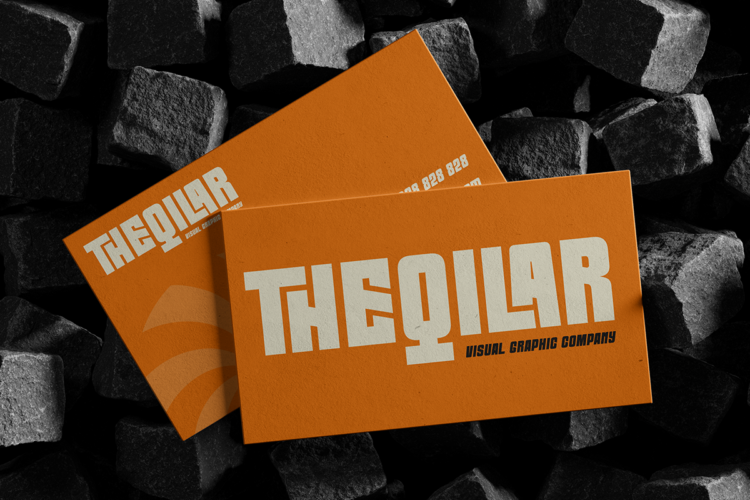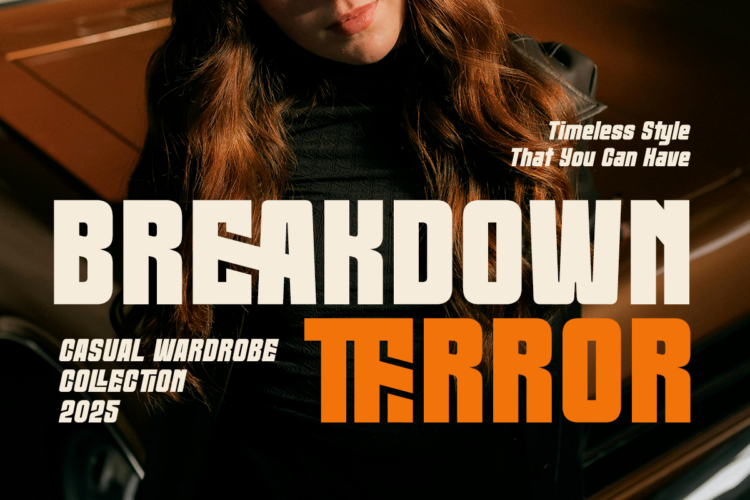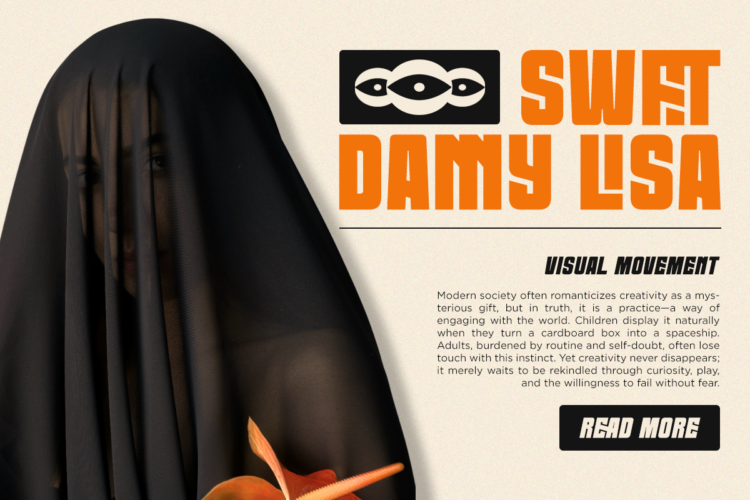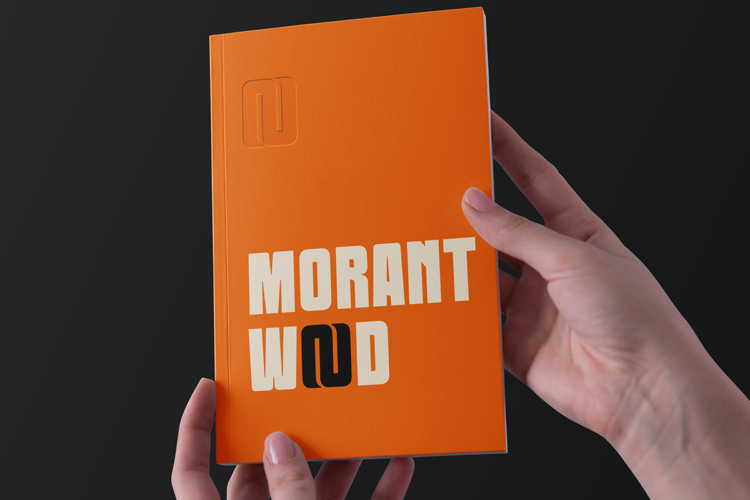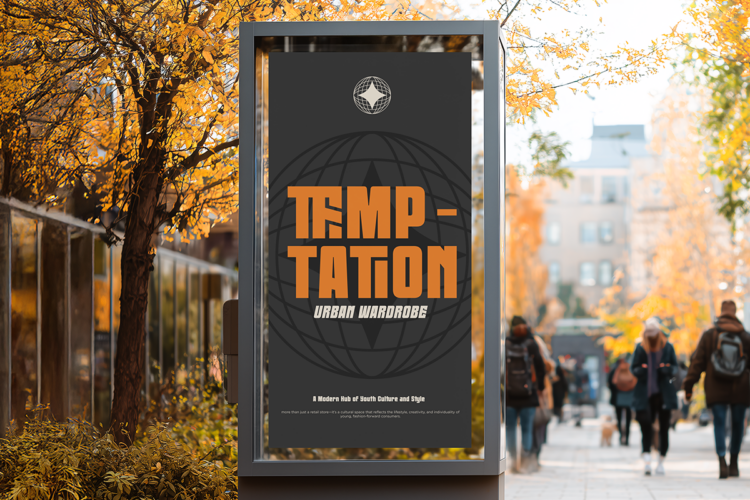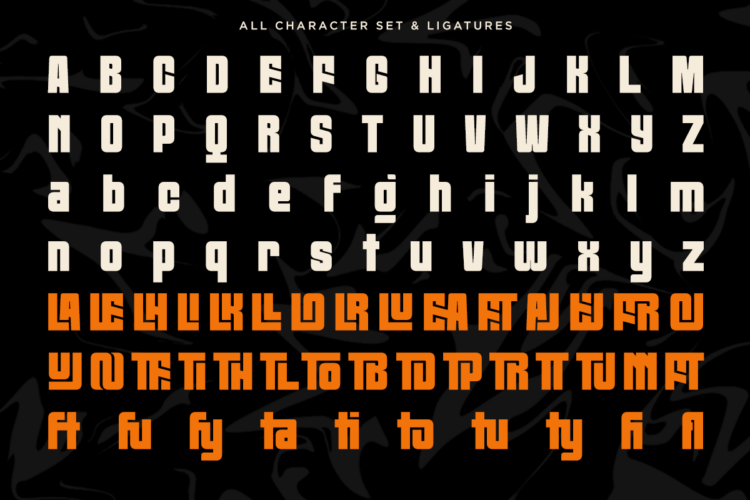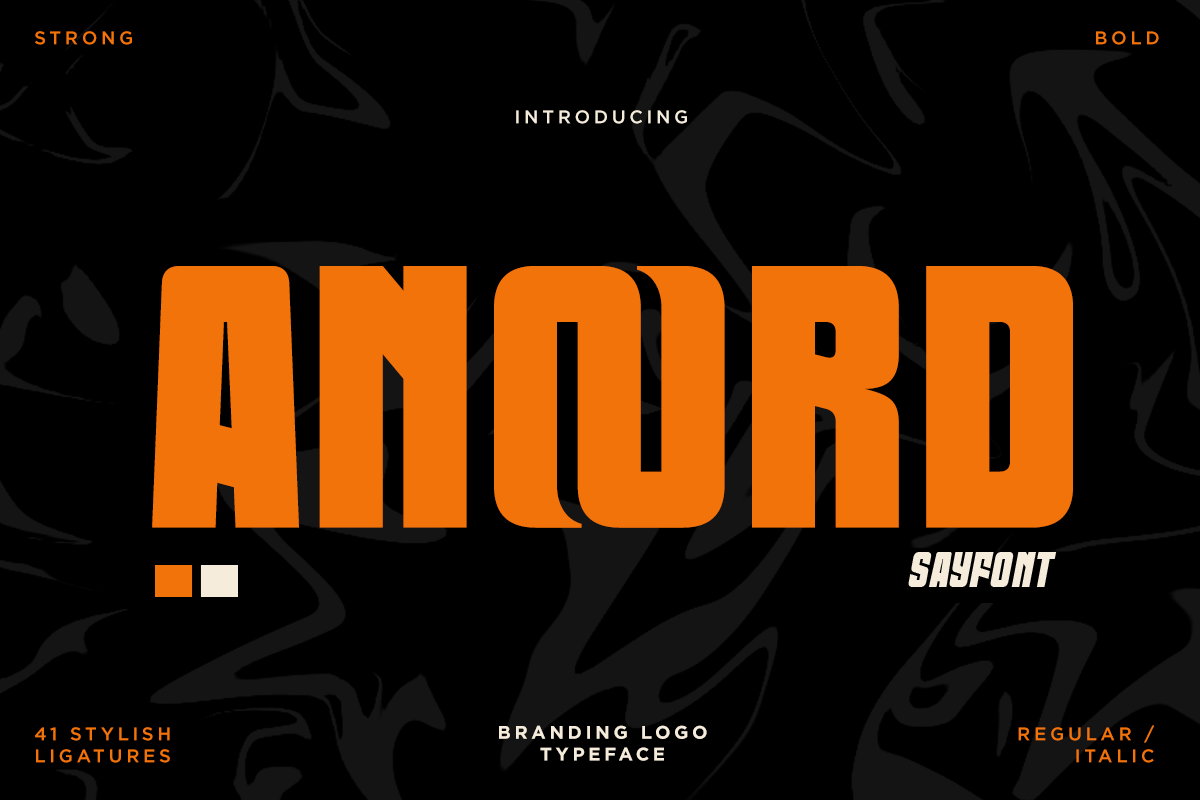
Anoord Regular
Anoord Italic
Introducing Anoord, a bold and modern typeface. With its strong, impactful lines and distinctive cut details, Anoord is perfect for creating striking headlines, logos, and posters. Its bold, blocky letters exude strength and confidence, making it ideal for projects that need to command attention and leave a lasting impression. Whether you’re designing for advertising, fashion, or creative branding, Anoord’s robust style offers a versatile solution for maximizing visual impact.
– 41 Stylish Ligature ( Uppercase and Lowercase )
– Multililngual Support
– Number, and Punctuation
Anoord – Bold Branding Font